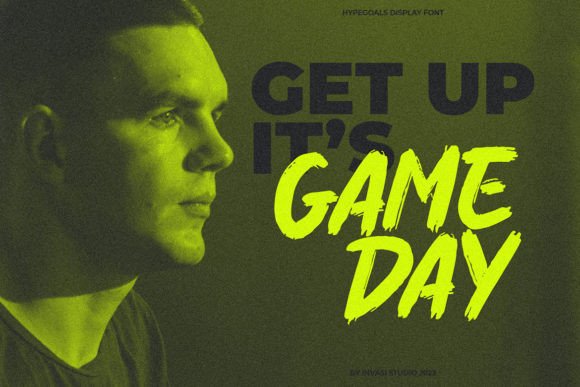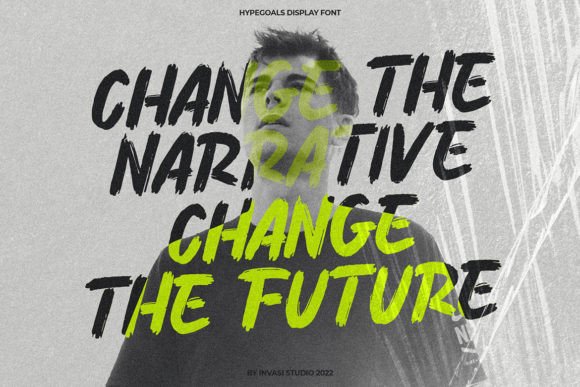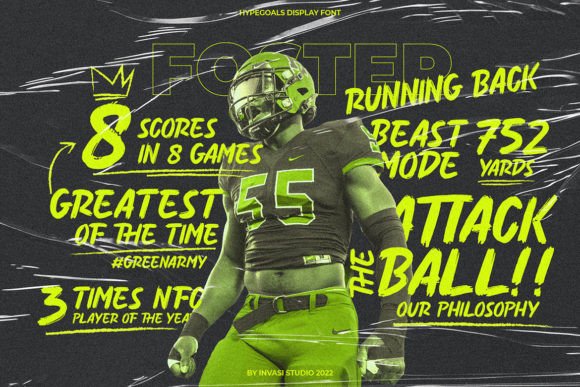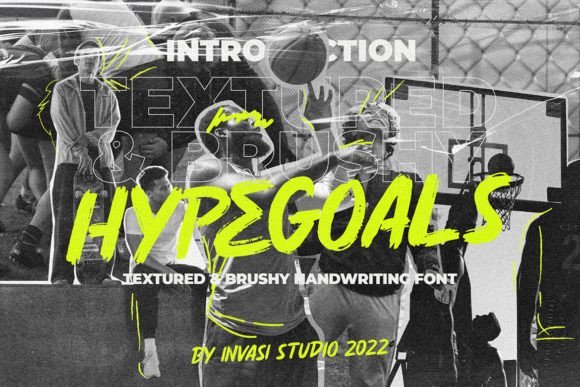
Introduction to Hypegoals Font
This textured, handwritten brush display font with aggressive strokes is perfect for displaying a project’s headline.
Your sports team will stand out with this typeface Hypegoals is ideal for headings, flyers, greeting cards, product packaging, book covers, printed quotes, logotype, album covers, and more.